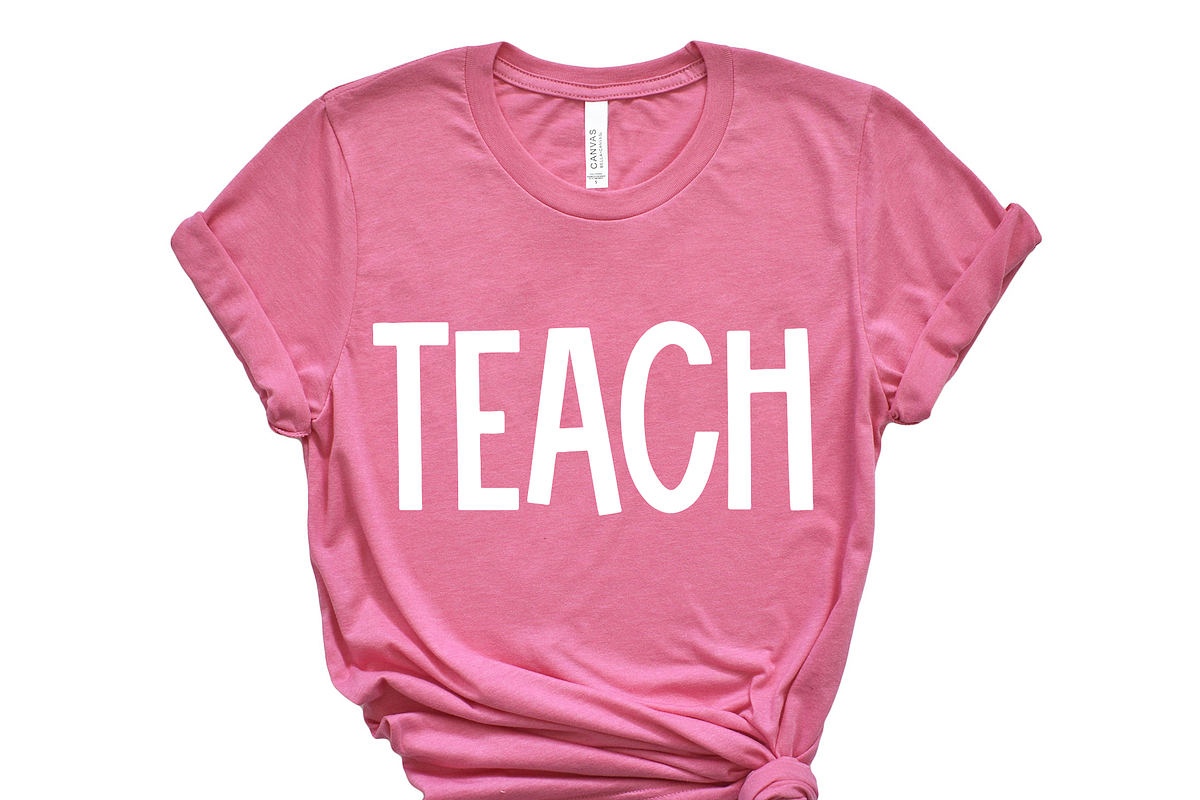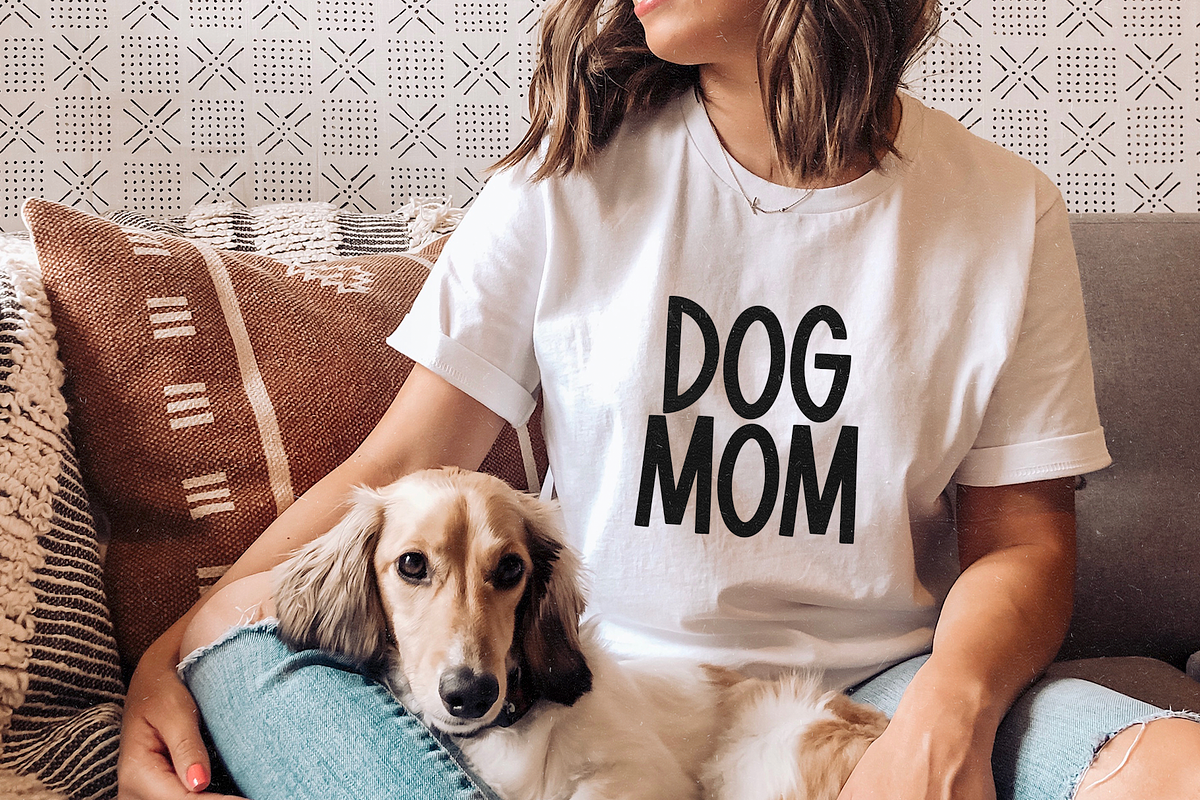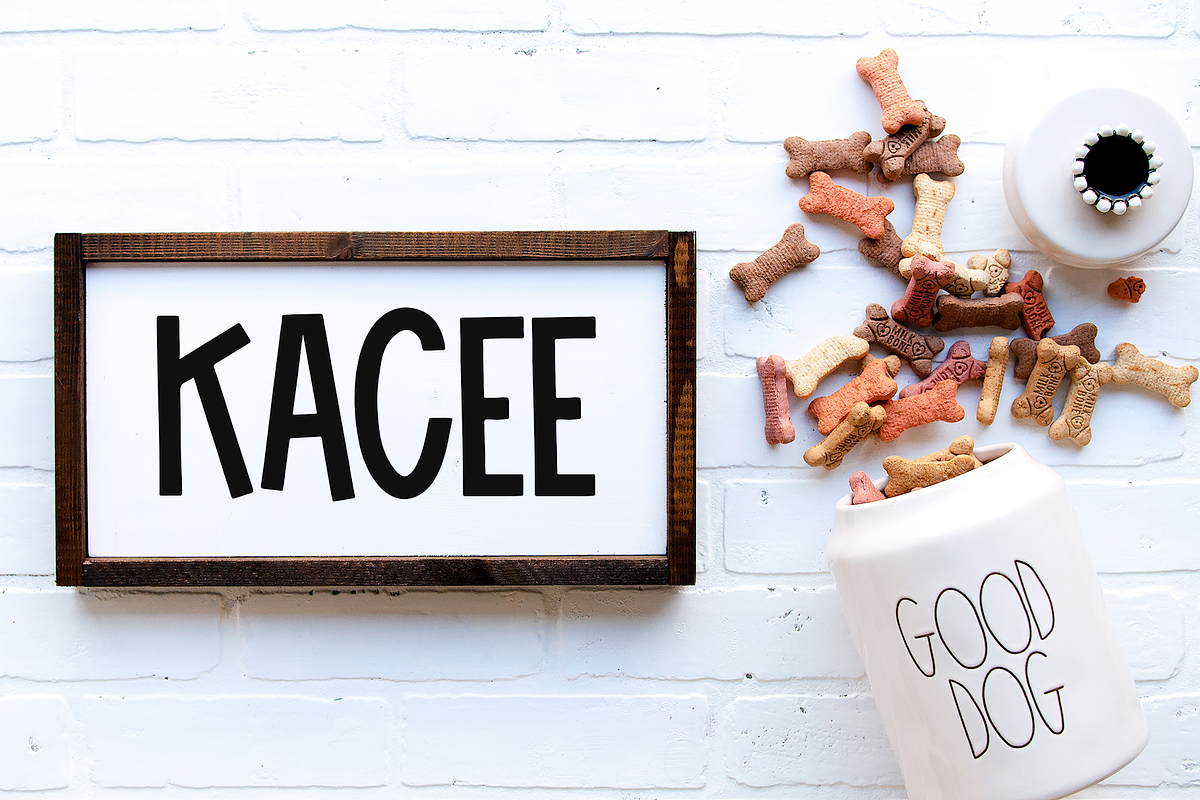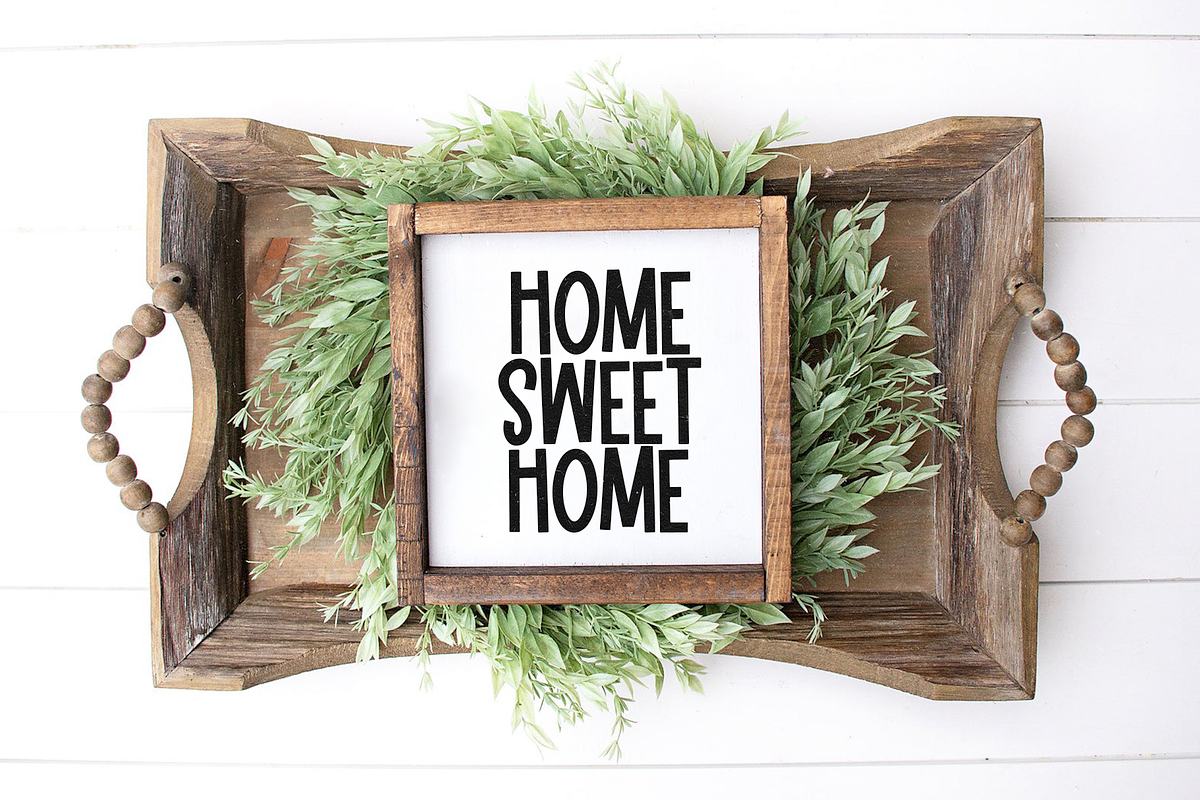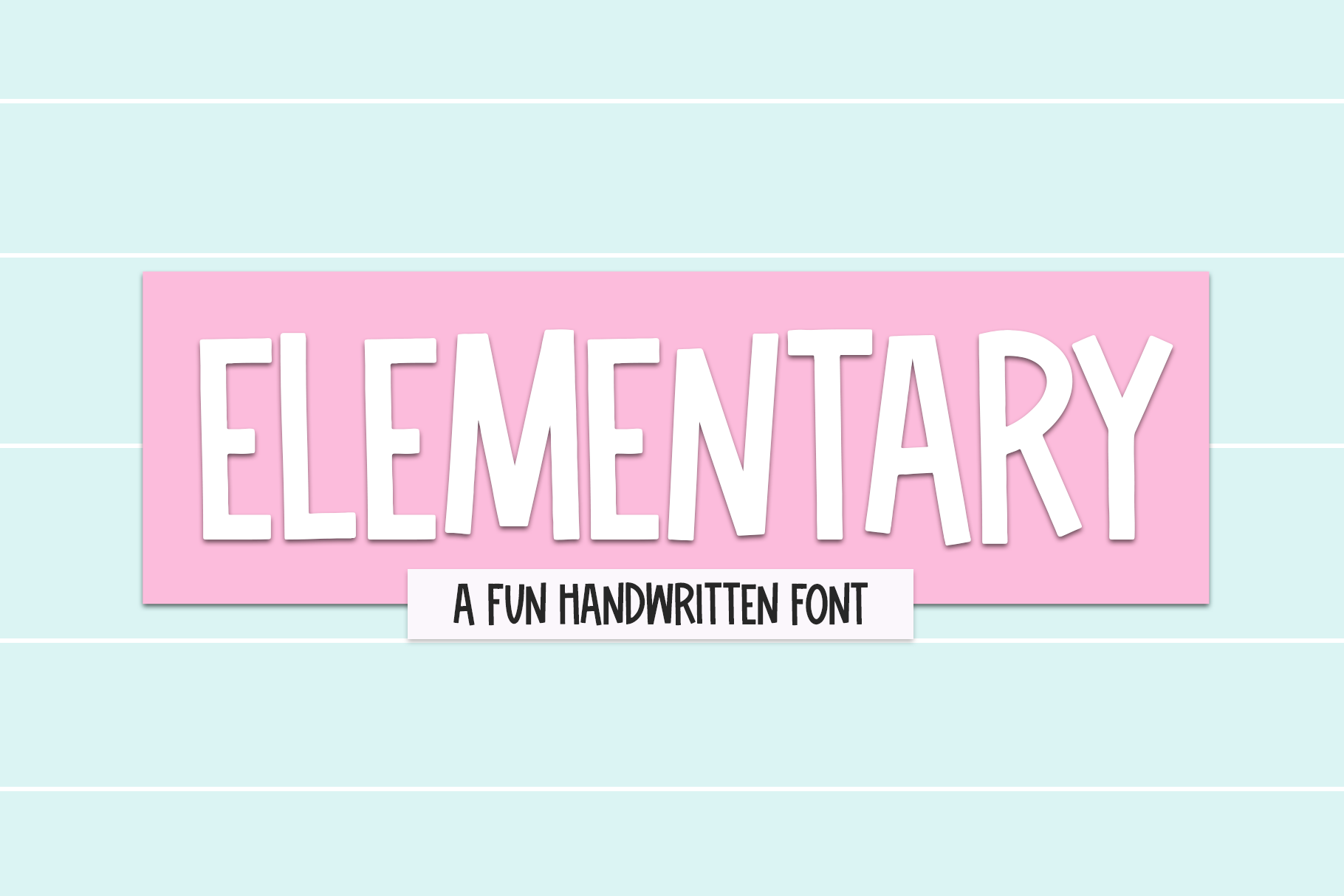
Elementary | Fun Handwritten Font
Elementary is a fun handwritten font.
This font is perfect for all of your crafting projects, svg designs, branding, logos, quotes, prints and more!